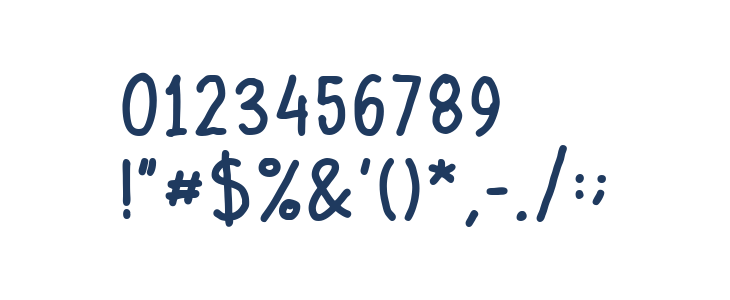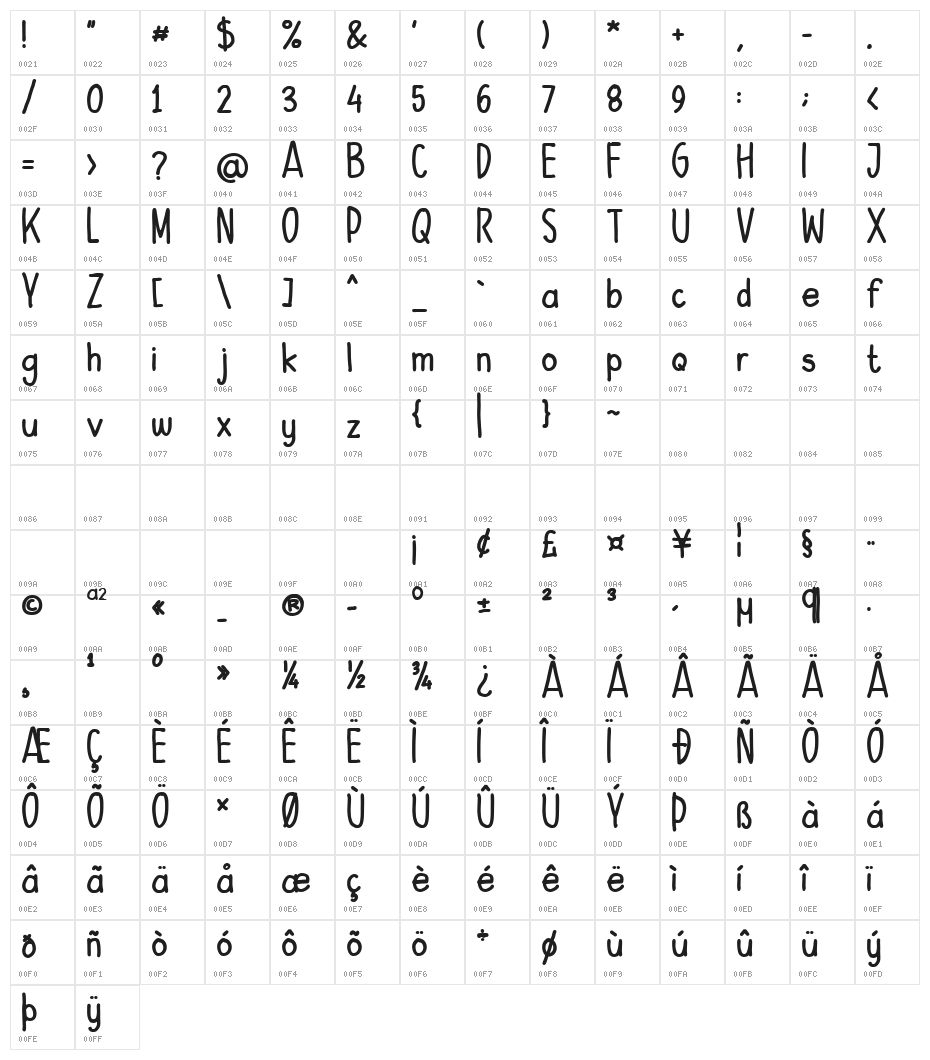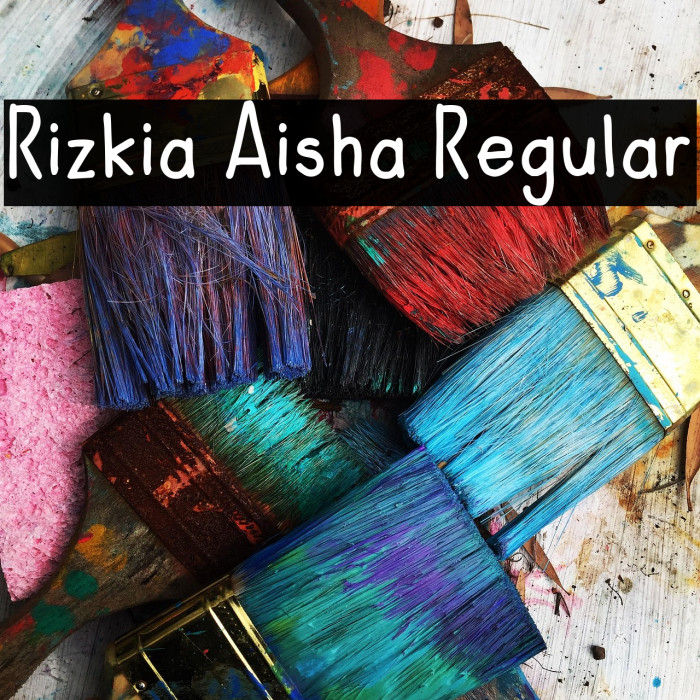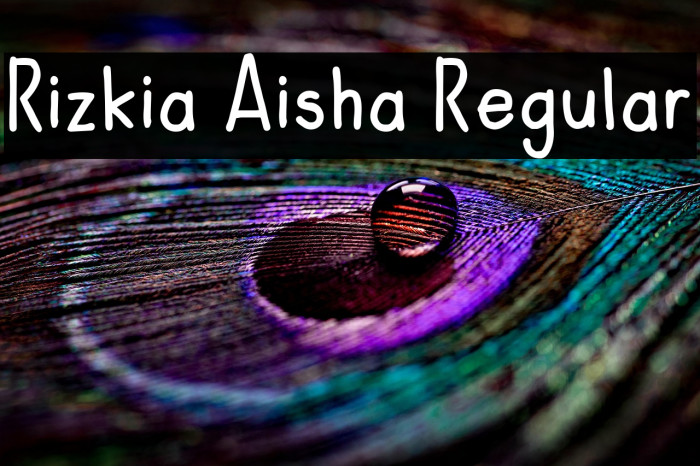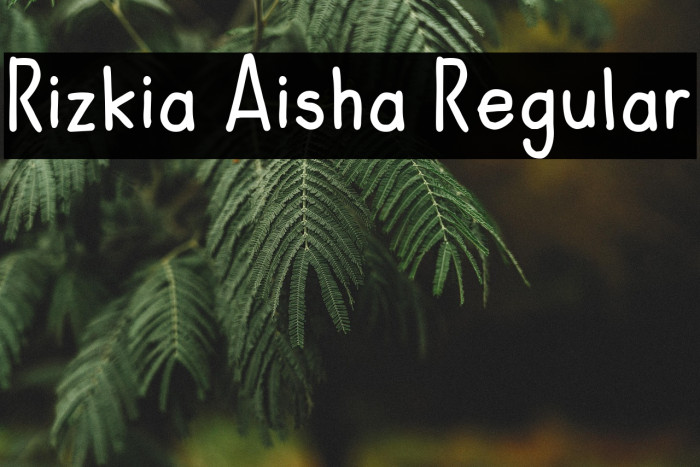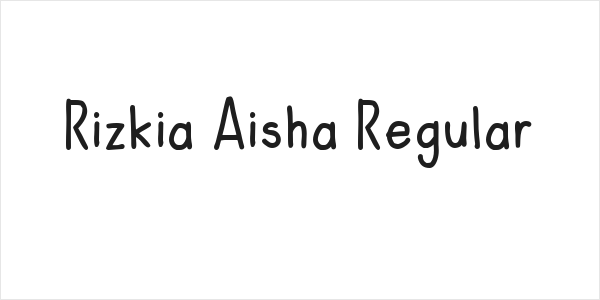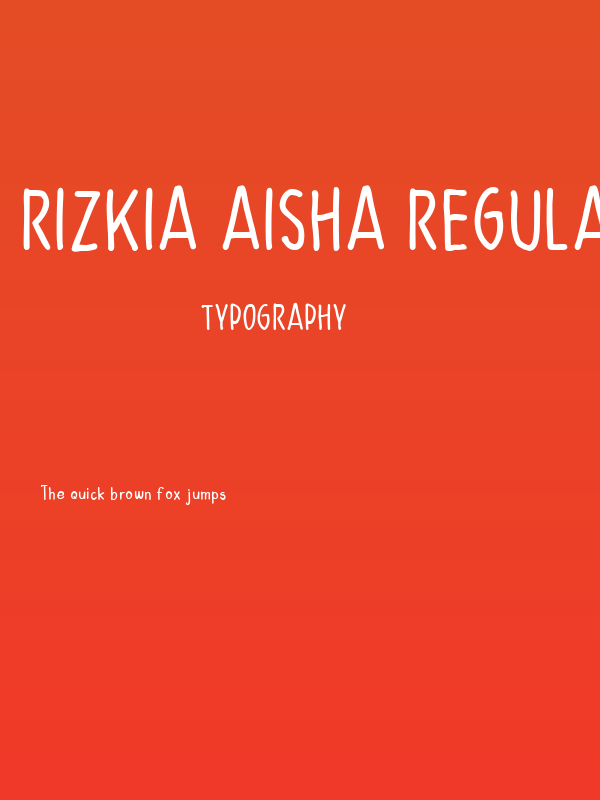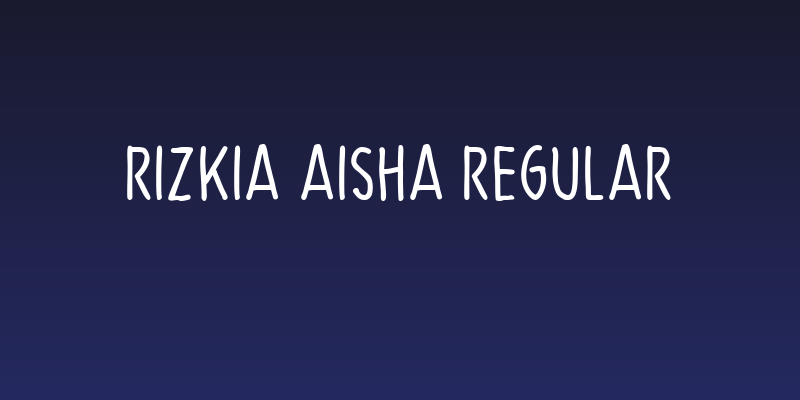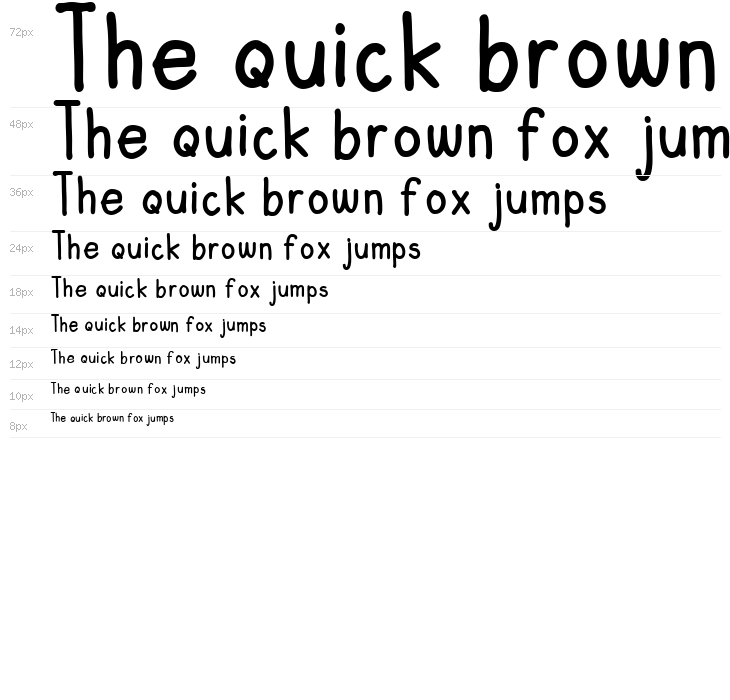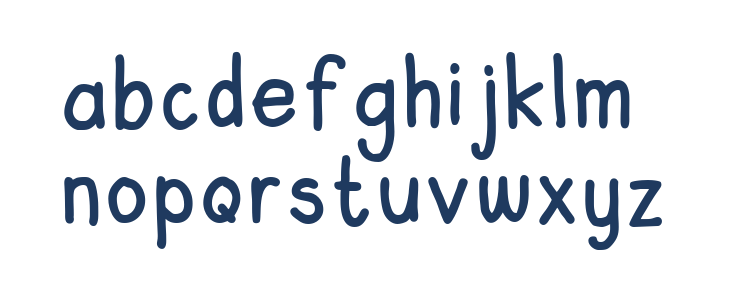
Rizkia Aisha Regular Font
Rizkia Aisha Regular Description
This font features a playful and casual handwritten style, characterized by its rounded and slightly irregular letterforms. The uppercase and lowercase letters maintain a consistent flow, giving it a friendly and approachable appearance. The numerals and special characters are crafted with the same playful touch, making them easily readable while retaining the font's unique charm. The overall design is informal, making it suitable for projects that require a personal and relaxed feel.
Overall StyleCasual
Use CaseHeadlines, Informal text, Creative projects
Proposed ProjectsIdeal for children's books, greeting cards, personal blogs, and informal branding.